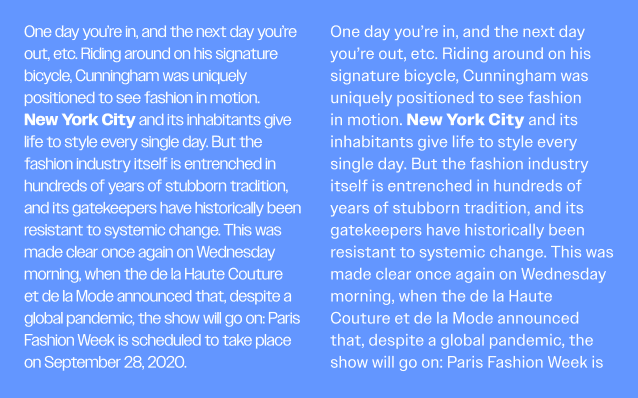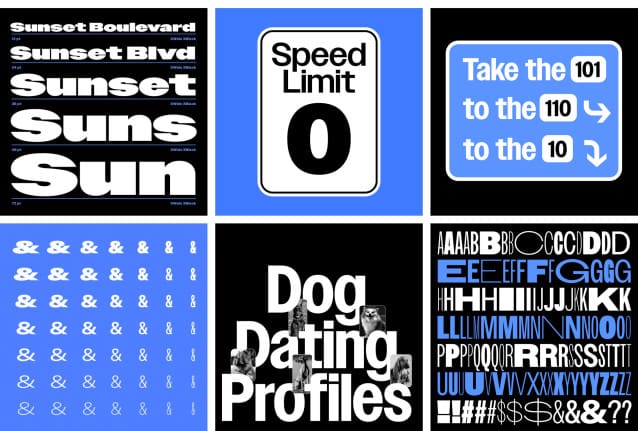
Owners Font Family
Owners Font Family is a handcrafted, geometric sans serif inspired by sign painting and influenced by modern gothics. These signs were made in the International Style, but warmed up through the quirk and charm of vernacular signmakers’ unique approaches to letterform construction. As signs come in all shapes and sizes, the letters are often stretched to fill necessary spaces, thus Owners Font has a diverse range of weights and widths. The fonts are set tightly for maximum headline impact and logo-like presence, and there are also Text versions for use at small sizes.